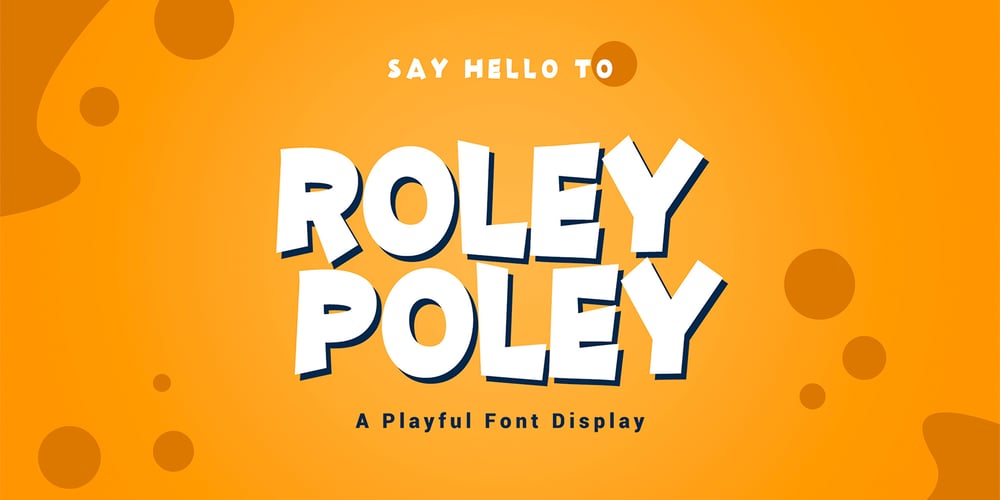
Roley Poley Font Family was designed by Yahdi Kumala and published by Rometheme. Roley Poley contains 1 styles and family package options. Roley Poley font is a playful font. It fits for cartoon, kids, and is cute and bold. It’s a great font for fashion, apparel projects, signatures, album covers, logos, branding, magazines, social media, and advertisements, but also works great for other projects.